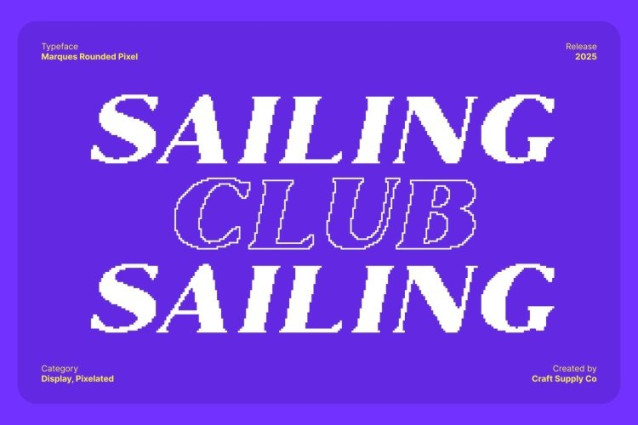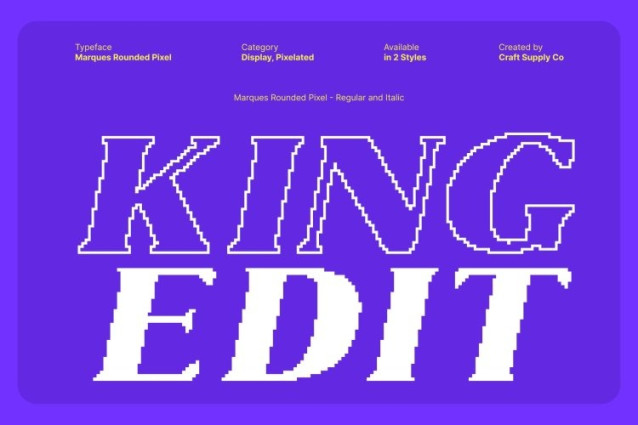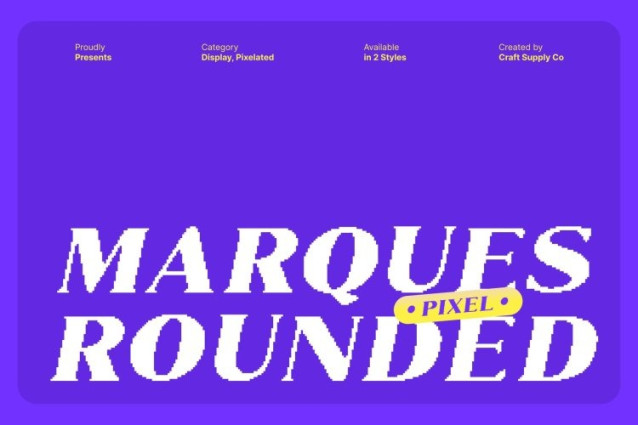
Marques Rounded Pixel Font This is a classic modern serif display font designed with clean, slender lines that exude elegance and professionalism. Each character is carefully crafted to maintain clarity and refinement, making it ideal for projects that demand a polished, high-end appearance. Its subtle curves and smooth edges create a balanced, timeless look.
Pixel Style for Modern Digital Character
Enhanced with a pixel-inspired style, this font merges traditional serif sophistication with modern digital aesthetics. The pixel detailing adds a contemporary flair, giving the font a creative, tech-savvy edge without compromising readability. This unique combination allows your designs to feel both classic and forward-thinking.
Rounded Forms for Friendly and Approachable Feel
The rounded terminals soften the font’s structure, adding warmth and approachability to its professional style. These gentle curves enhance versatility, making Marques Rounded Pixel suitable for a wide range of applications from corporate branding to editorial layouts while maintaining a creative, visually engaging presence.
Perfect for Branding, Posters, and Editorial Layouts
This font excels in projects that require a refined yet modern touch. Use it for branding, posters, packaging, or editorial designs where a blend of sophistication and digital creativity is desired. Its clean lines, pixel-inspired details, and rounded forms make it the perfect choice for designers seeking a professional, polished, and contemporary serif font.